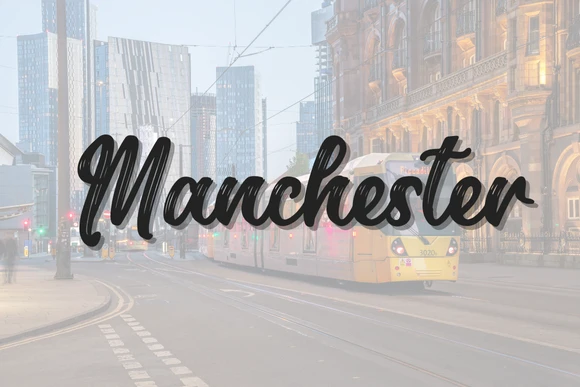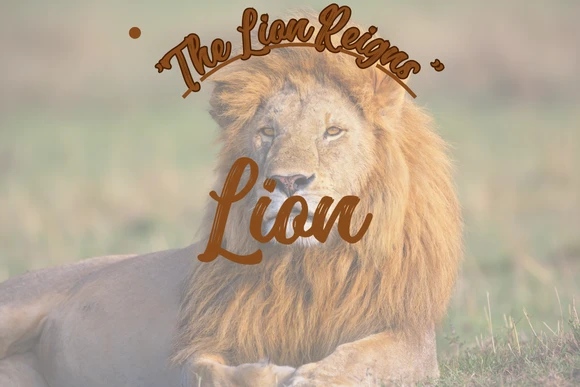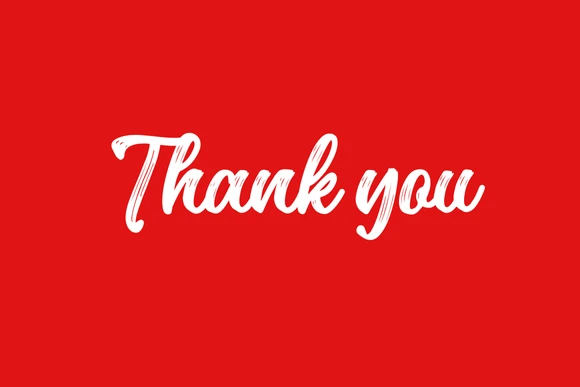
Make every occasion unforgettable with Wedding Fonts ā a refined calligraphy and script typeface collection designed specifically for weddings and special events. Its flowing curves, delicate swashes and polished letterforms bring sophistication and romance to any project, making it the perfect choice for couples, event planners and designers who want a classic yet modern look.
Use Wedding Fonts for wedding invitations, save-the-date cards, RSVP cards, menus, signage, seating charts, bridal shower stationery, social media graphics, logos and branding. With beautiful alternates and ligatures, your text will look hand-lettered while remaining easy to read in both print and digital designs.